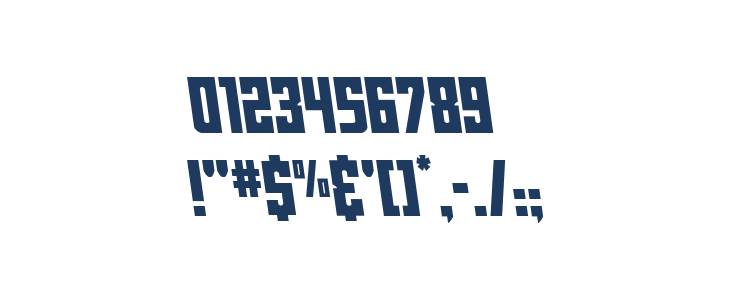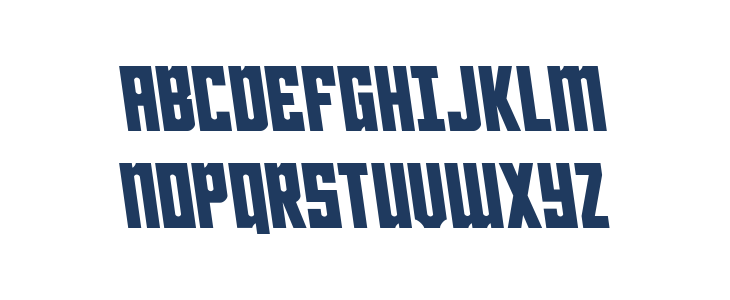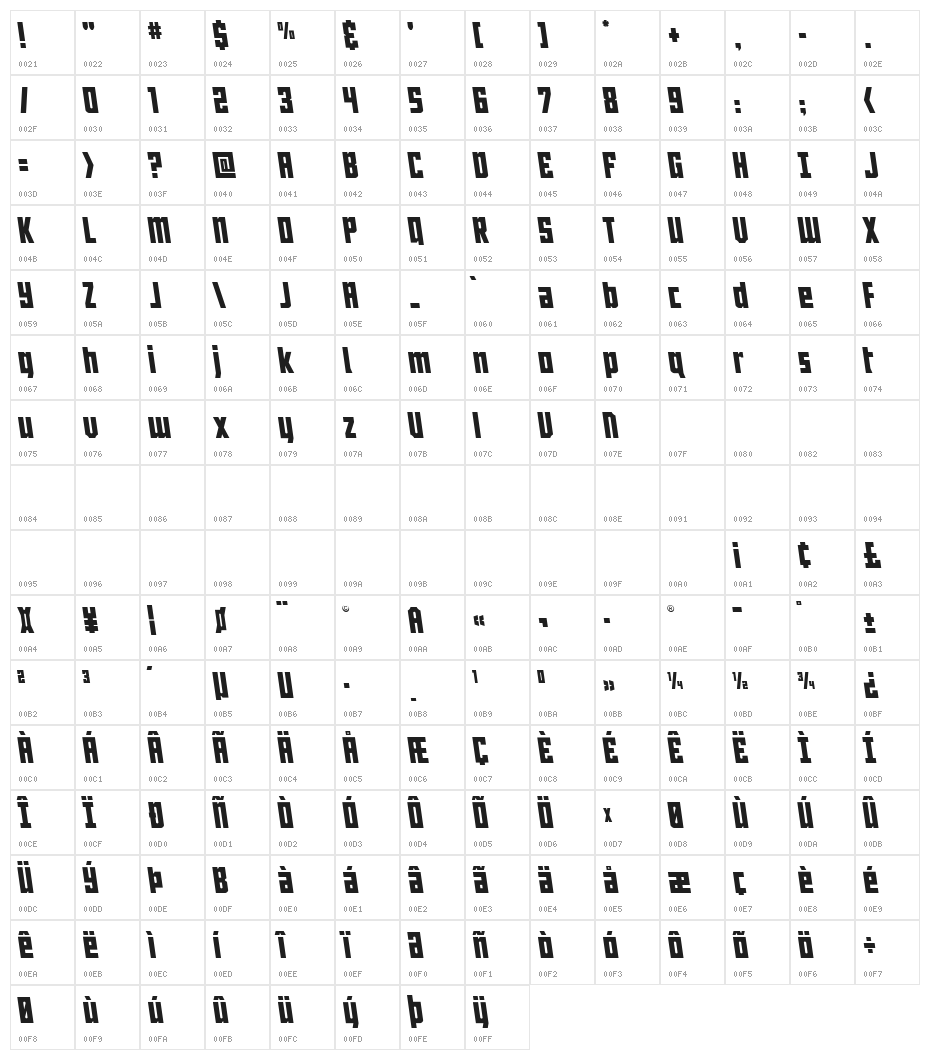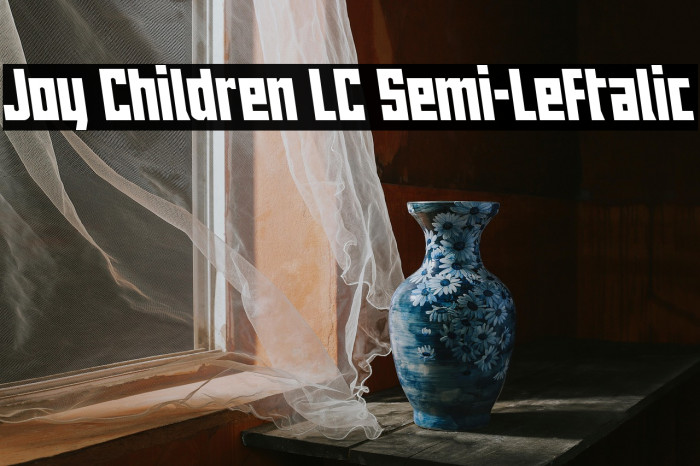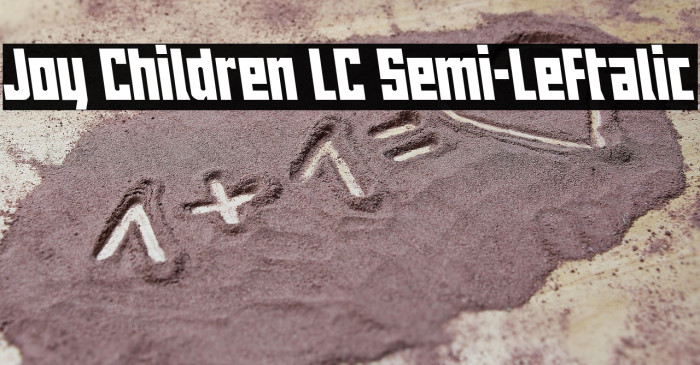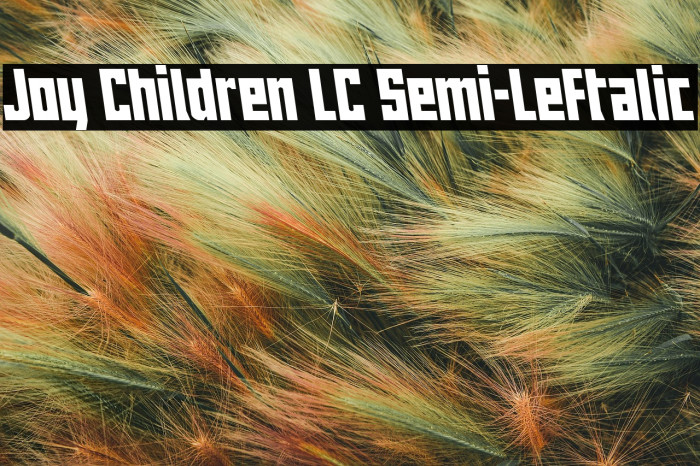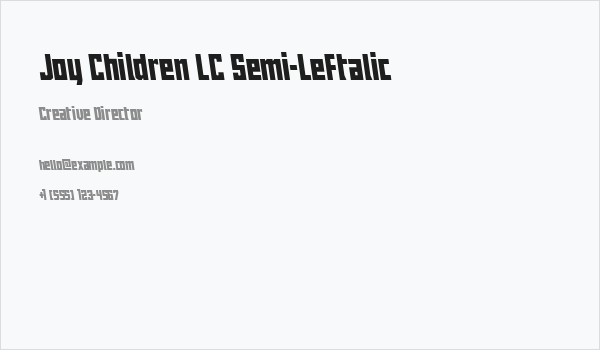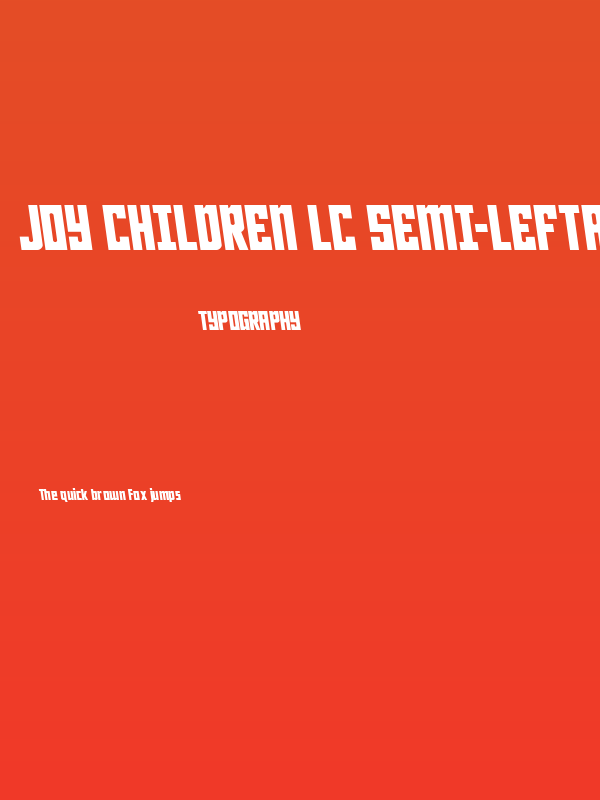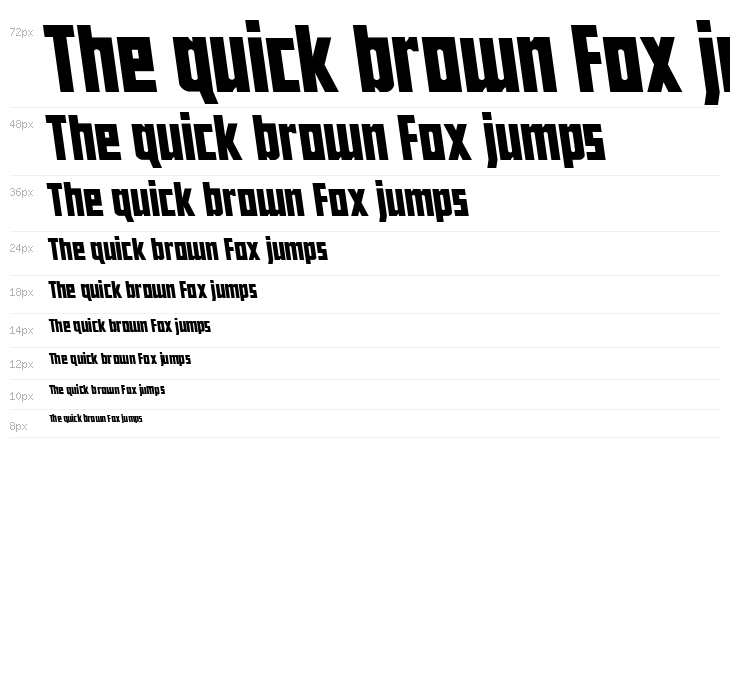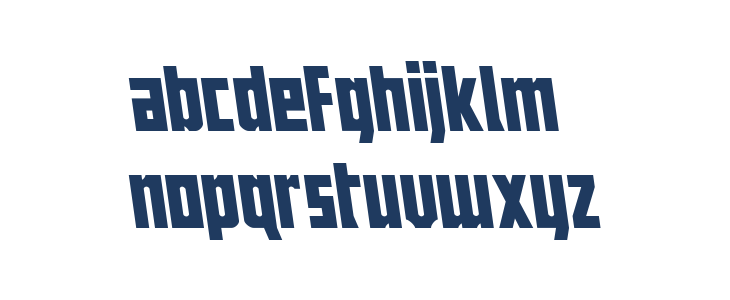
Joy Children LC Semi-Leftalic Font
Joy Children LC Semi-Leftalic Description
Bold, blocky, geometric sans-serif font with a strong, modern appearance. The characters are thick, angular, and have a uniform stroke width, giving a sturdy and impactful look.
| Overall Style | Modern, Geometric, Bold |
| Use Case | Headlines, Logos, Posters, Branding |